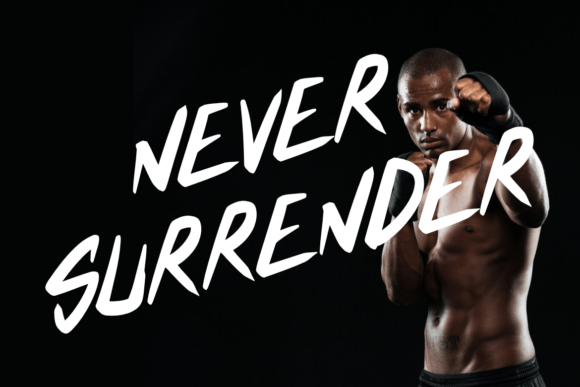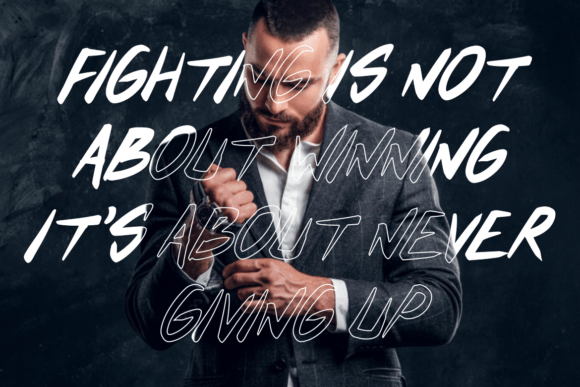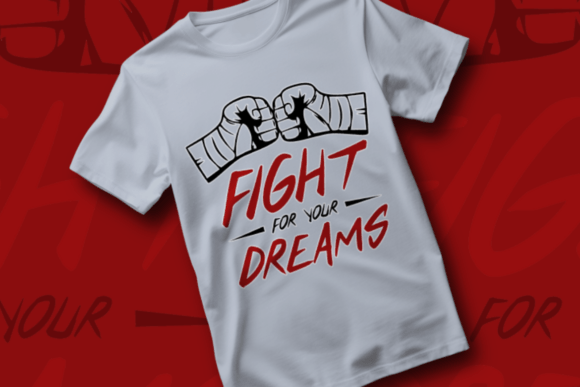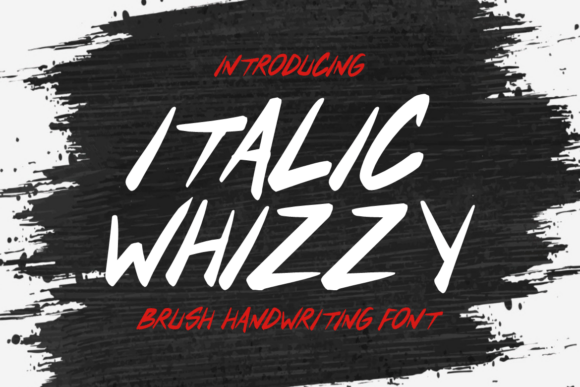
Introduction to Italic Whizzy Font
Introducing ItalicWhizzy – Brush Handwriting Font, a dynamic typeface that captures the essence of street art with a playful twist.
This bold, italicized font is not just a typeface; it’s an attitude With its scribble-like texture and sketch-inspired style, ItalicWhizzy brings a touch of whimsy to any project.
Key Features of Italic Whizzy Font
Why Choose Italic Whizzy Font?